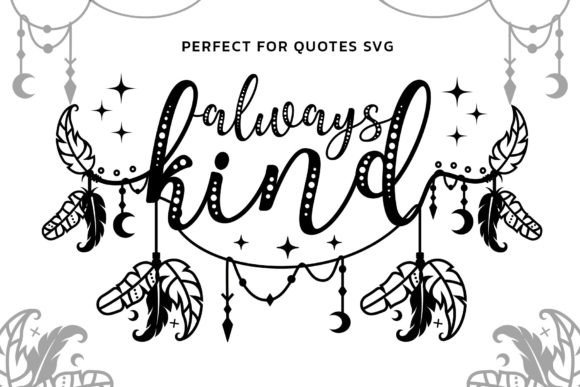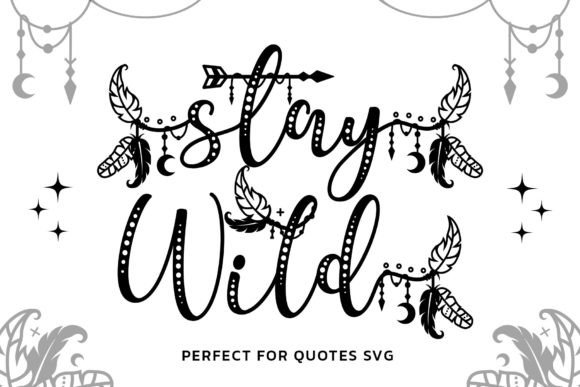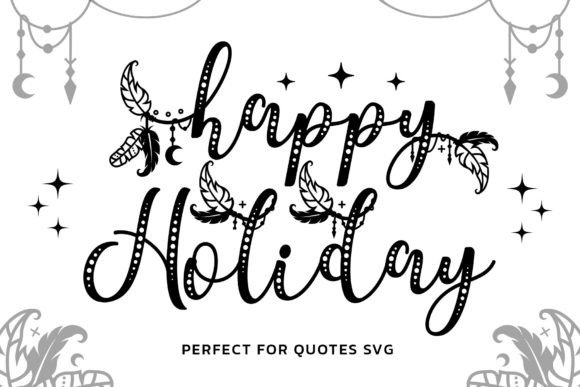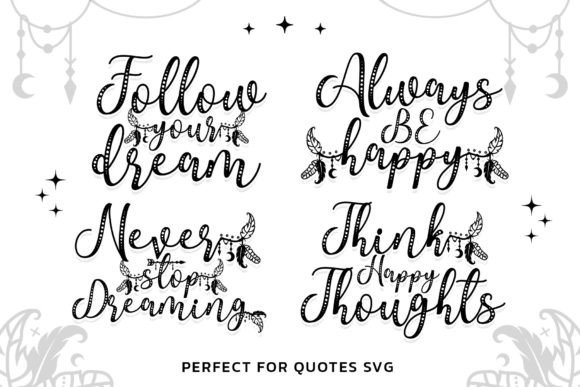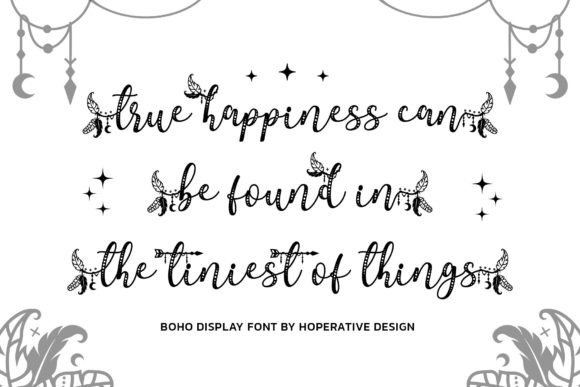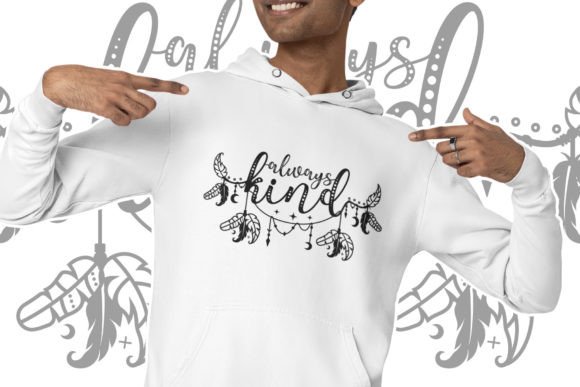
Unleash Your Creativity with the Boho Font
Have you ever been brainstorming for a design project and suddenly, a spark of inspiration strikes? You envision a font that exudes freedom and coziness, one that captures the essence of a laid-back lifestyle. That’s exactly what the Boho Font does – it brings your creative vision to life.
The Boho Font is a stunning, elegant concept font that embodies the spirit of the Boho design. Its unique style makes it perfect for t-shirts, svg designs, and print products that radiate a carefree, bohemian vibe. With its PUA encoding, accessing all the glyphs and swashes is a breeze, giving you the creative freedom to experiment and push the boundaries of design.
Whether you’re a seasoned designer or just starting out, the Boho Font is an invaluable asset to your creative arsenal. Its versatility and beauty make it a valuable addition to any design project, ensuring that your work stands out and tells a story that resonates with your audience.
Boho Font Key Features
- Unique Characteristics: The Boho font features a unique, hand-drawn style with intricate details and subtle texture, giving it a distinctive, bohemian feel.
Boho Font Review
Overall, I think the Boho Font is a unique and creative choice for designers looking to add a touch of free-spirited elegance to their projects. ✨ The font’s handwritten, cursive feel is perfect for crafting a whimsical and bohemian vibe.
- ✨ Distinctive, hand-drawn style that adds a personal touch
- ✨ Suitable for various design projects, from invitations to blog posts
- ✨ Plenty of customization options to adjust the font’s appearance
- ⚠️ May not be ideal for formal or professional projects
- ⚠️ Some letters and characters may be difficult to read or distinguish, especially at smaller font sizes
- ⚠️ Limited support for certain languages or character sets
While the Boho Font has its limitations, it’s still a great choice for designers who want to add a touch of personality and whimsy to their work. With some careful selection and use, this font can help create a truly unique and eye-catching visual identity.
Boho Font is perfect for creating designs that exude a free-spirited, bohemian vibe. Some common use cases include:
– Blog posts and articles
– Fashion and lifestyle branding
– Any design that requires a unique, eclectic look.